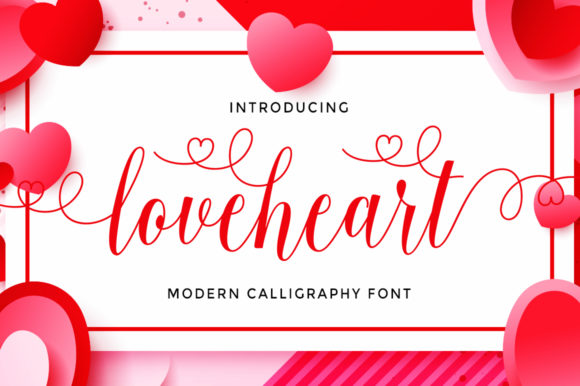
Loveheart Font
Indulge in the captivating embrace of Loveheart Font, a whimsical script that weaves a web of enchantment around your designs. Its graceful curves and alluring swashes dance across the page, evoking a symphony of emotions.
Crafted by the ingenious minds at Selotypestudio, Loveheart is a masterpiece of digital calligraphy. Each stroke is imbued with a touch of elegance, reminiscent of flowing ink on parchment. The font's versatility knows no bounds, adapting seamlessly to a kaleidoscope of creative visions.
Unleash your inner artist and embrace the transformative power of Loveheart. Its enchanting allure will captivate your audience, leaving an indelible imprint on their hearts and minds. Whether you seek to craft enchanting invitations, heartfelt love letters, or spellbinding social media posts, Loveheart is your muse.
Embrace the allure of Loveheart Font today and embark on a journey of exceptional design. Let its enchanting aura inspire you to create masterpieces that transcend the ordinary.